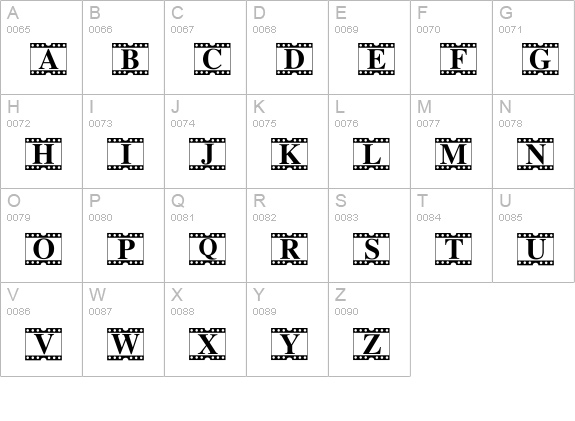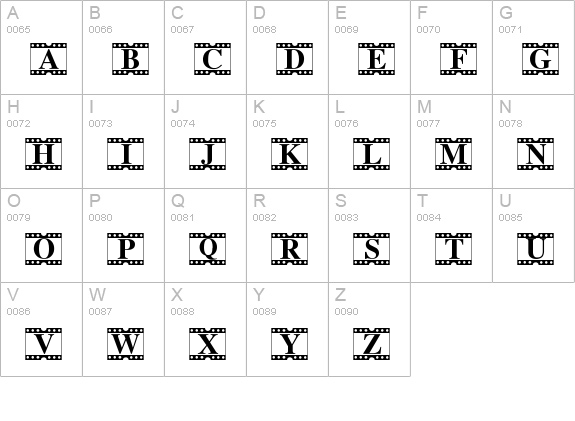
Movie Times Font Details
Introducing Movie Times font, a stunning typeface that brings a touch of cinematic elegance to any project. With its sleek lines and bold characters, this font captures the essence of classic movie titles and poster designs. The Movie Times font is not only visually appealing, but it also offers a convenient feature - it is freely available to download at FontsMarket.com. This means that designers, filmmakers, and enthusiasts alike can effortlessly incorporate this striking font into their creations without any cost. Whether you're working on a movie poster, a film title sequence, or simply want to add a touch of Hollywood glamour to your graphic designs, Movie Times font is the perfect choice. Its versatility allows it to shine in both retro and modern settings, adding a timeless charm to any project. The attention to detail in this font is remarkable, with each character meticulously crafted to ensure a seamless and professional appearance. The boldness of the letters makes them stand out, commanding attention and emphasizing the important messages within your designs. With Movie Times font, you have the freedom to unleash your creativity and bring your ideas to life. Its wide range of characters and symbols make it suitable for various languages and purposes, ensuring that it can be used in diverse projects. Don't miss out on this incredible opportunity to elevate your designs with the captivating Movie Times font. Download it freely at FontsMarket.com and let your imagination run wild as you create stunning visuals that are sure to leave a lasting impression.